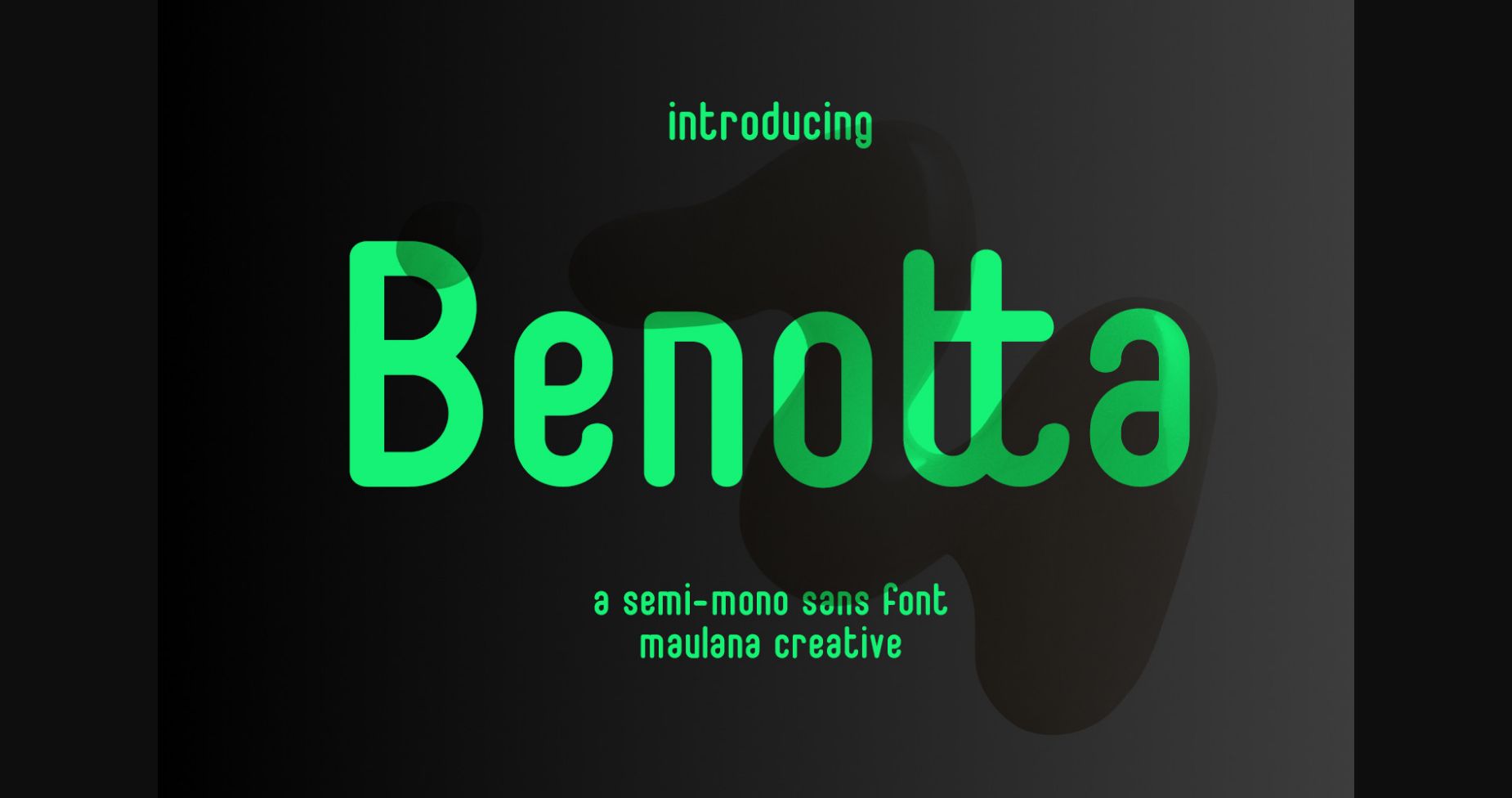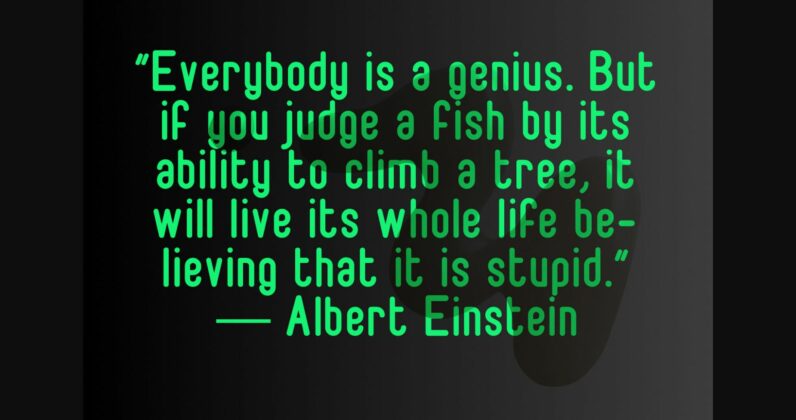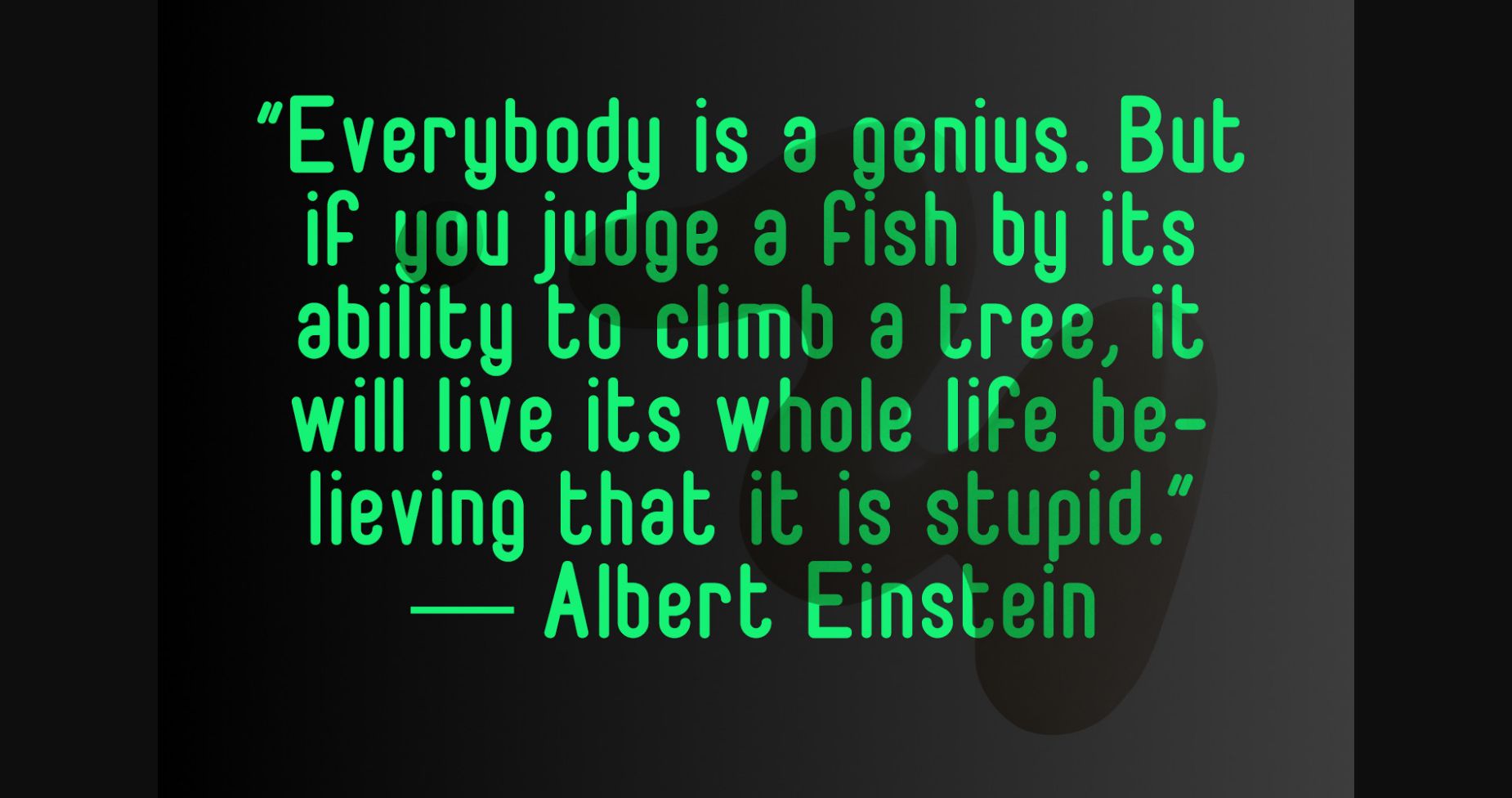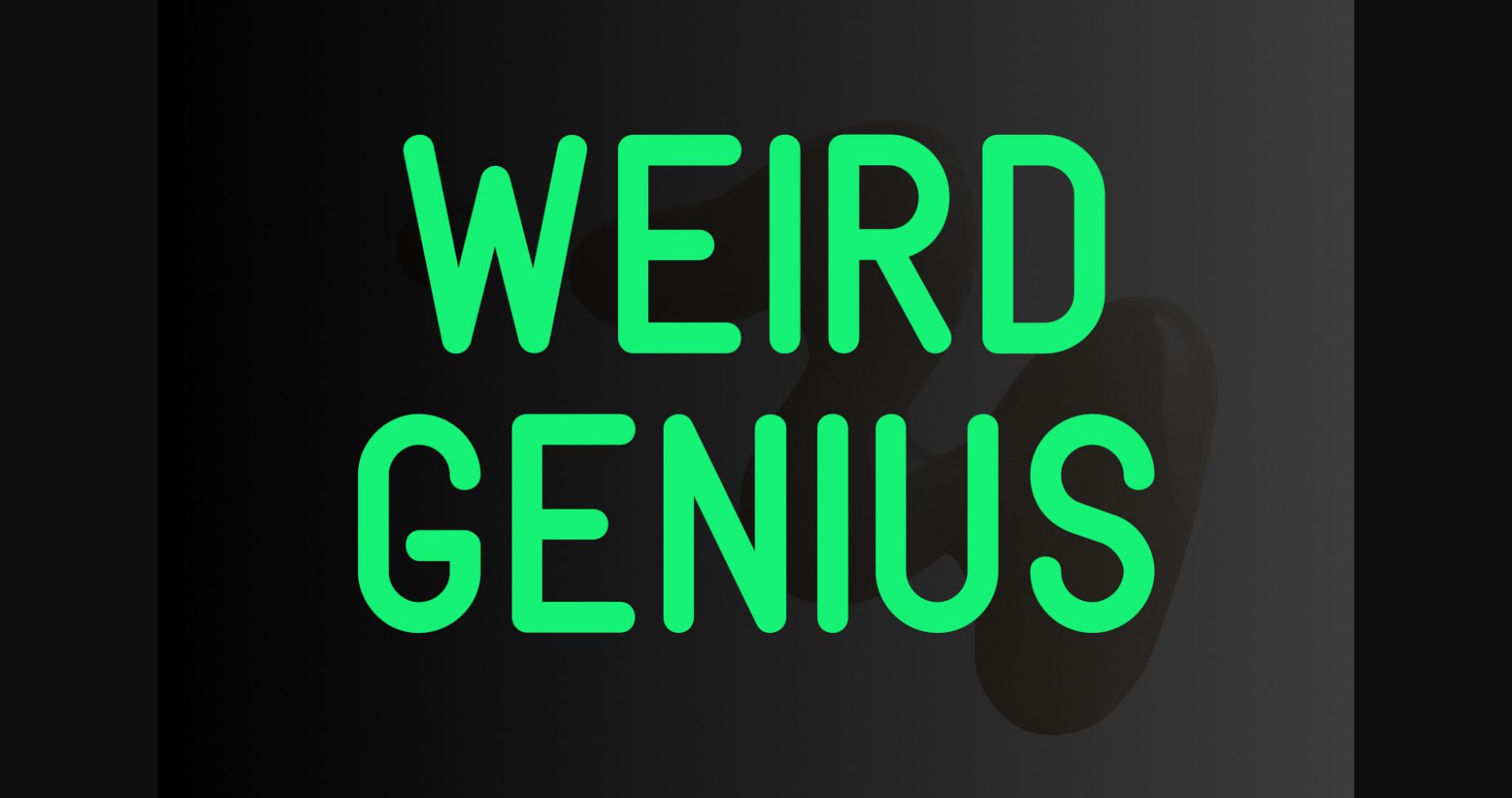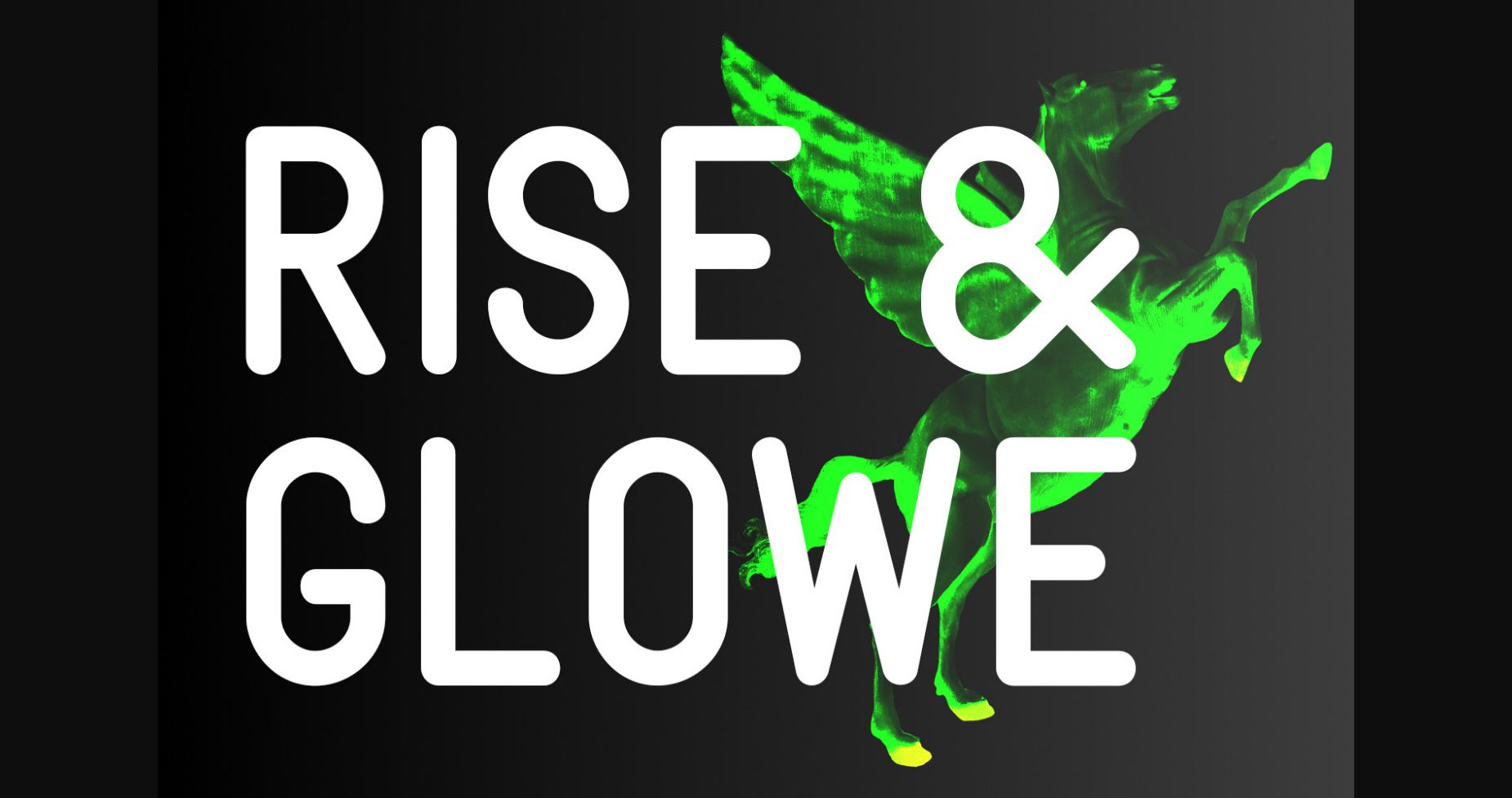
About Benotta Font
Benotta is a modern monoline sans display font. Regular stroke, fun character with a bit of ligatures and alternates. To give you an extra creative work. Benotta font support multilingual more than 100+ language. This font is good for logo design, Social media, Movie Titles, Books Titles, a short text even a long text letter and good for your secondary text font with script or serif. Make a stunning work with Benotta font.